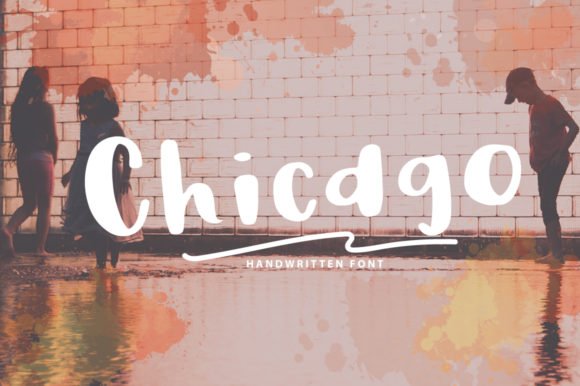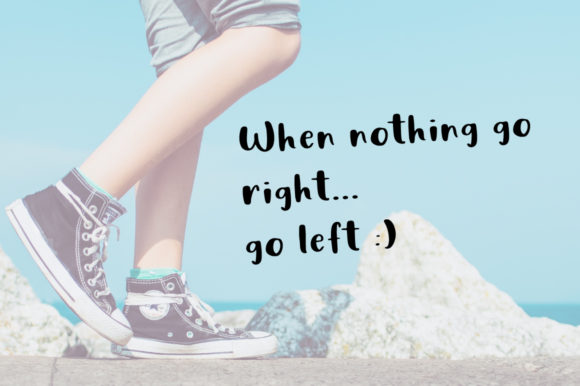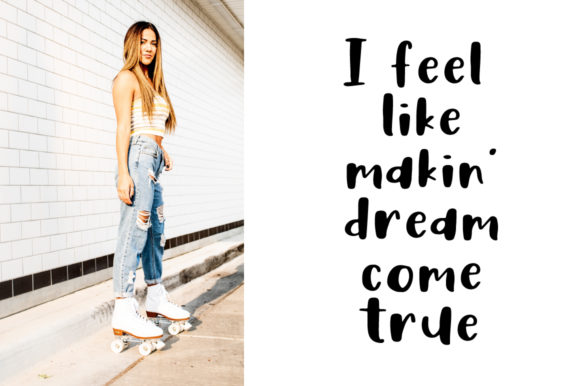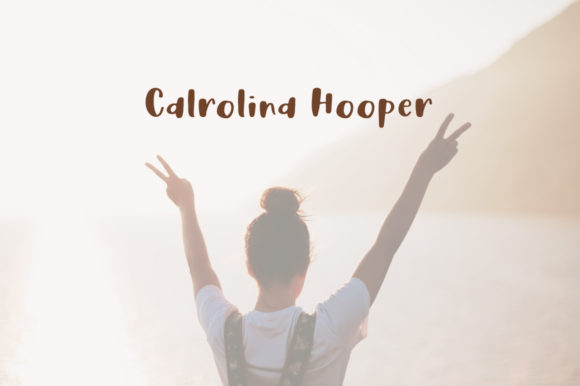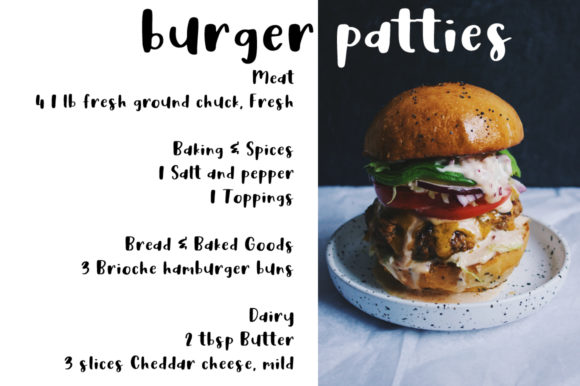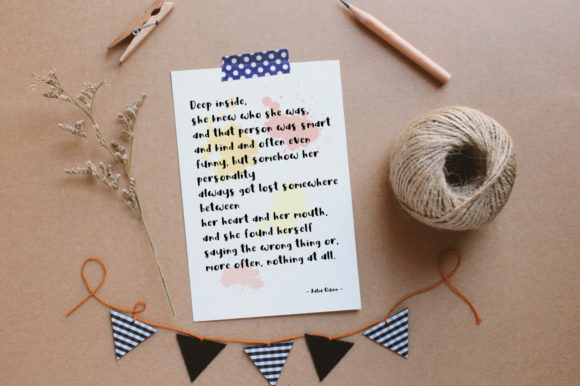
Discover the Timeless Elegance of the Chicago Font
Remember that moment when you stumbled upon the perfect font for your project? The one that spoke to your creative soul and made your design come alive? For many designers, that moment is all about finding the perfect script font to elevate their work.
| 📌 Product Name | Chicago Font |
| 👤 Author | Studio_Art |
The Chicago Font is a stunning example of this magic. With its carefully crafted, handwritten feel, it’s the perfect choice for invitations, branding, blog posts, and more. Its chic and stylish aesthetic makes it a valuable addition to any designer’s toolkit.
Whether you’re a seasoned pro or just starting out, the Chicago Font is an essential resource to have in your design arsenal. Its versatility and timeless elegance make it a go-to choice for designers looking to create stunning, professional-looking designs.
Key Features of Chicago Font
- Unique Characteristics: Chicago Font is known for its distinctive rounded shapes, friendly feel, and subtle variations in letterform width, making it highly legible and aesthetically pleasing.
- Font Family: Chicago Font is part of the Chicago font family, which includes several variations, including Chicago, Chicago Bold, Chicago Italic, and Chicago Bold Italic.
Chicago Font Review
As a designer, I have had the chance to work with the Chicago font, and I must say, it’s a classic. Here’s my honest review.
Legibility: The Chicago font is known for its clear and easy-to-read letters, making it perfect for body text.
Timeless appeal: Despite being designed in the 1980s, the Chicago font still looks modern and sleek.
Consistency: The font is well-designed, with consistent letter spacing and line height.
Lack of personality: The Chicago font is a bit too generic and lacks a distinct personality.
Not ideal for headings: While it’s great for body text, the Chicago font can get a bit too bland for headings.
Not as versatile as other fonts: The Chicago font is best suited for print materials, and it may not be the best choice for digital designs.
The Chicago font is a solid choice for designers who need a clear and readable font for body text. However, it may not be the best choice for designers who want a more distinctive or versatile font.
Getting the Most Out of Chicago Font
To get the most out of the Chicago font, try using it in combination with other fonts to create a balanced and visually appealing design.
Use the Chicago font for headings and titles, and pair it with a sans-serif font for body text.
The Chicago font is commonly used in:
- Academic and research papers
- Formal and business correspondence
Alternatives to Chicago Font
1. Garamond Font
Garamond is a classic serif font that is known for its elegance and readability. It is often used in book printing and is a popular choice for formal documents. Garamond is similar to Chicago Font in its serif style, but has a more refined and sophisticated look. Use Garamond when you need a font that exudes professionalism and sophistication.
2. Georgia Font
Georgia is a serif font that is designed specifically for digital use. It is clear and readable, even at small font sizes, making it a popular choice for web design and digital documents. Georgia is similar to Chicago Font in its serif style, but has a more modern and clean look. Use Georgia when you need a font that is easy to read on screens.
3. Baskerville Font
Baskerville is a classic serif font that is known for its clarity and elegance. It is often used in book printing and is a popular choice for formal documents. Baskerville is similar to Chicago Font in its serif style, but has a more traditional and classic look. Use Baskerville when you need a font that is timeless and sophisticated.